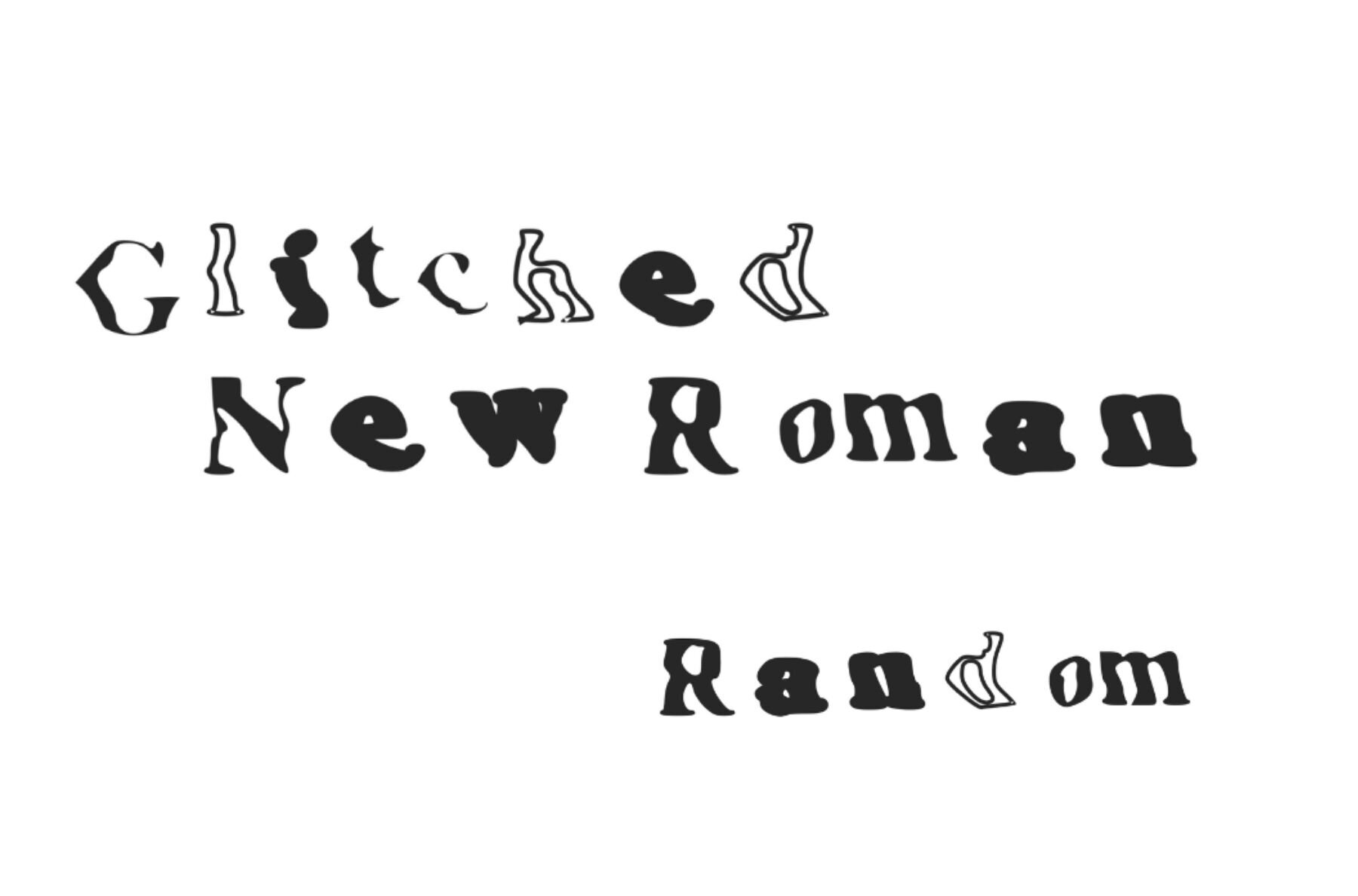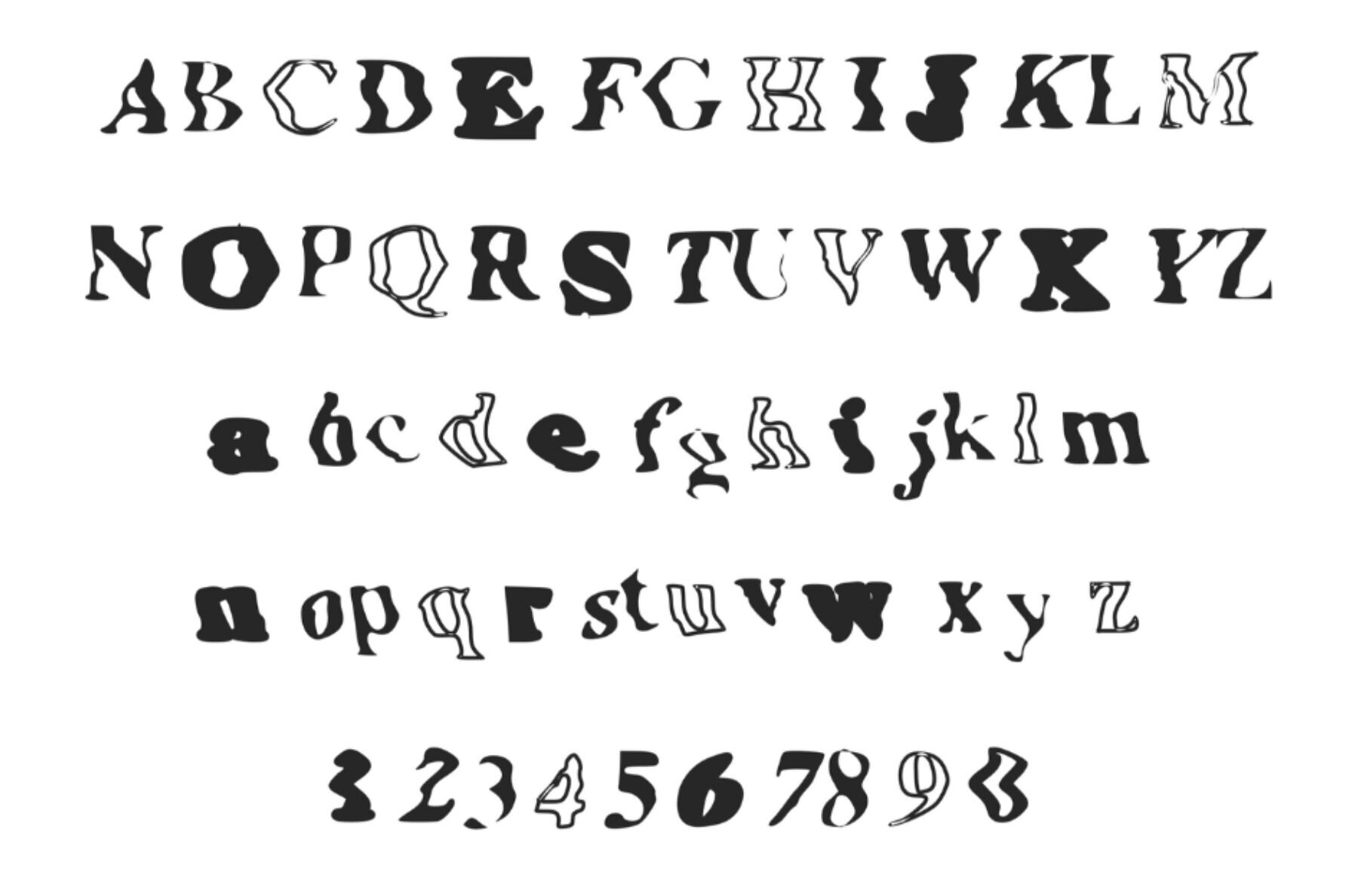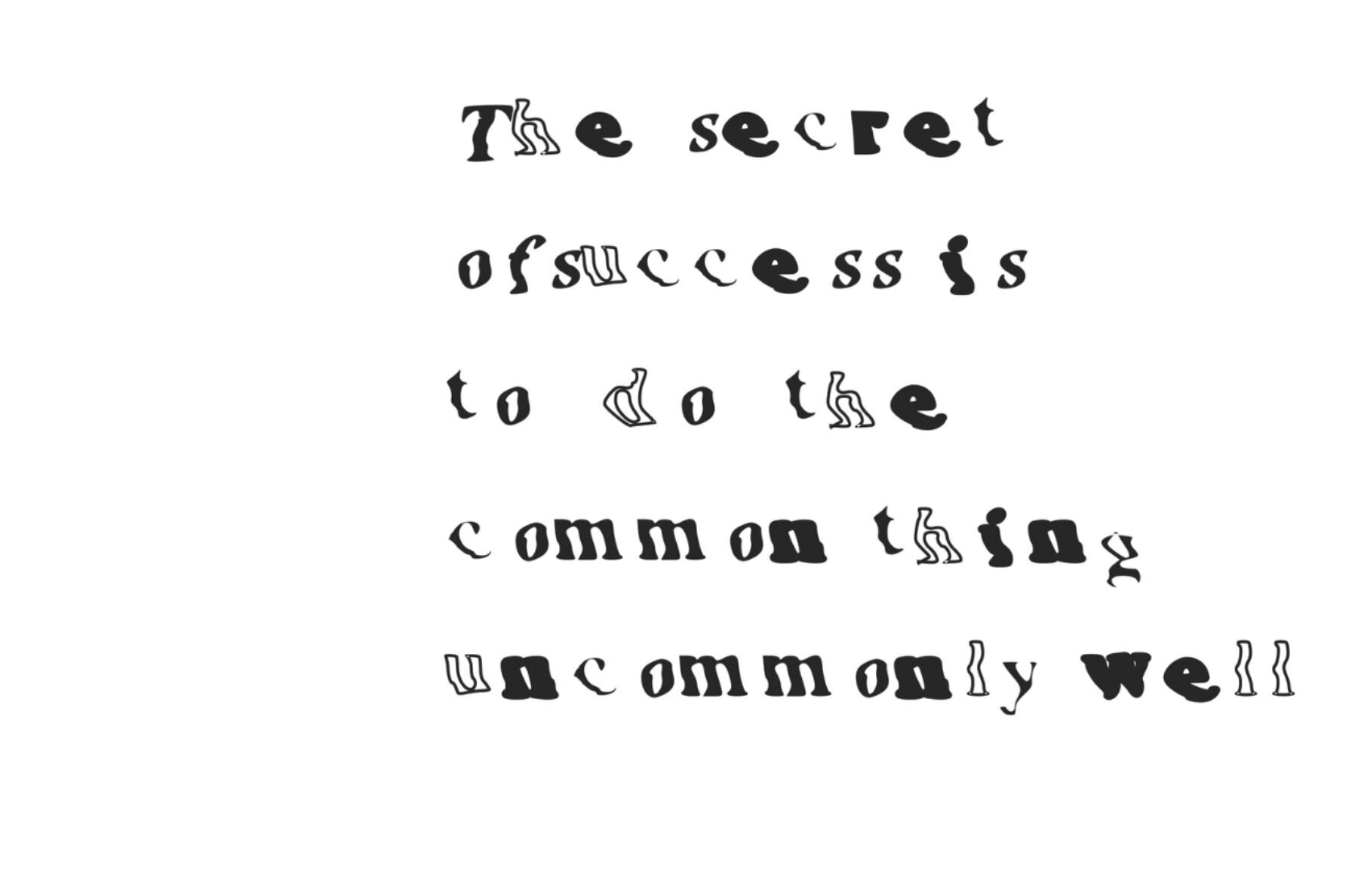
Glitch New Roman Random Font
Glitch New Roman Random
Discover Glitch New Roman Random, a distinctively glitched rendition of the classic font that brings digital chaos to your designs. This typeface includes all five weights of the comprehensive Glitch New Roman set, ensuring versatility and innovation in your projects. Ideal for hackers, web enthusiasts, or anyone passionate about glitch art, this font adds a unique edge to any creative endeavor.Glitch New Roman Random: A Typographic Adventure